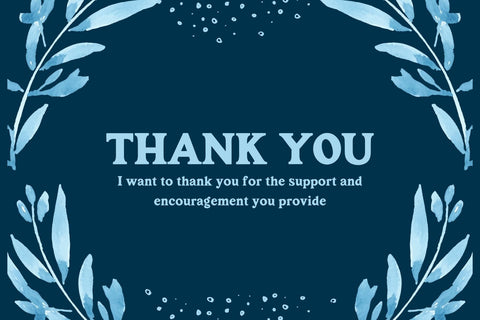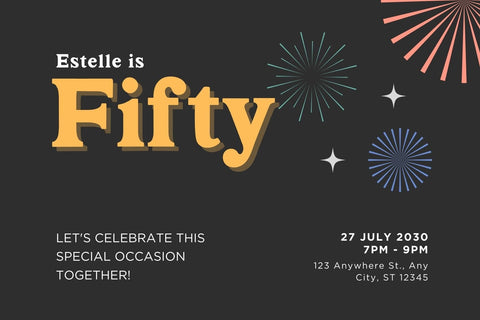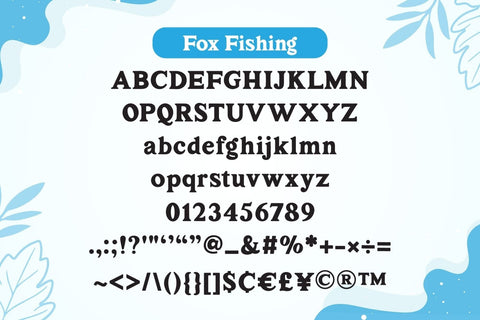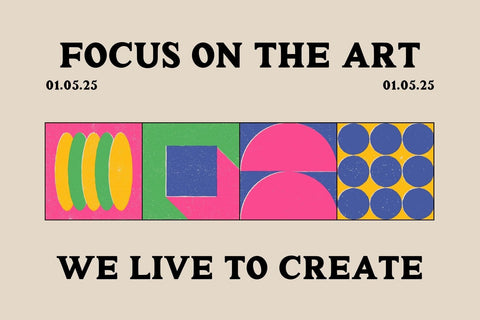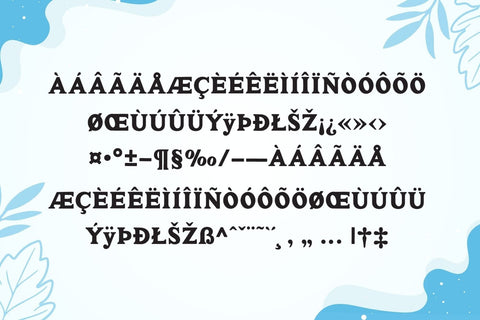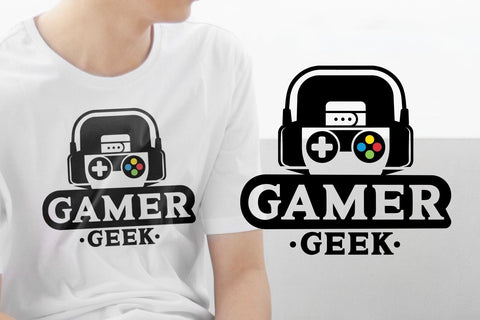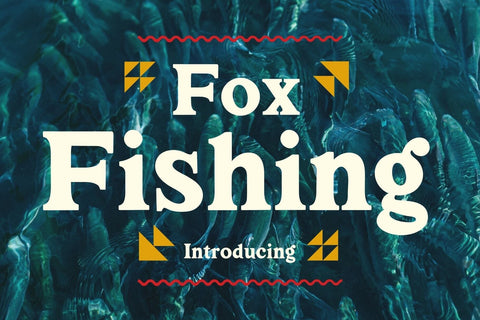
Fox Fishing Font
Fox Fishing is designed to be versatile. Compatible with both modern and vintage design styles. You can use it for various projects, such as blog posts, logos, branding, ads, invitations, greeting cards, planners, photo albums, decorations, and much more